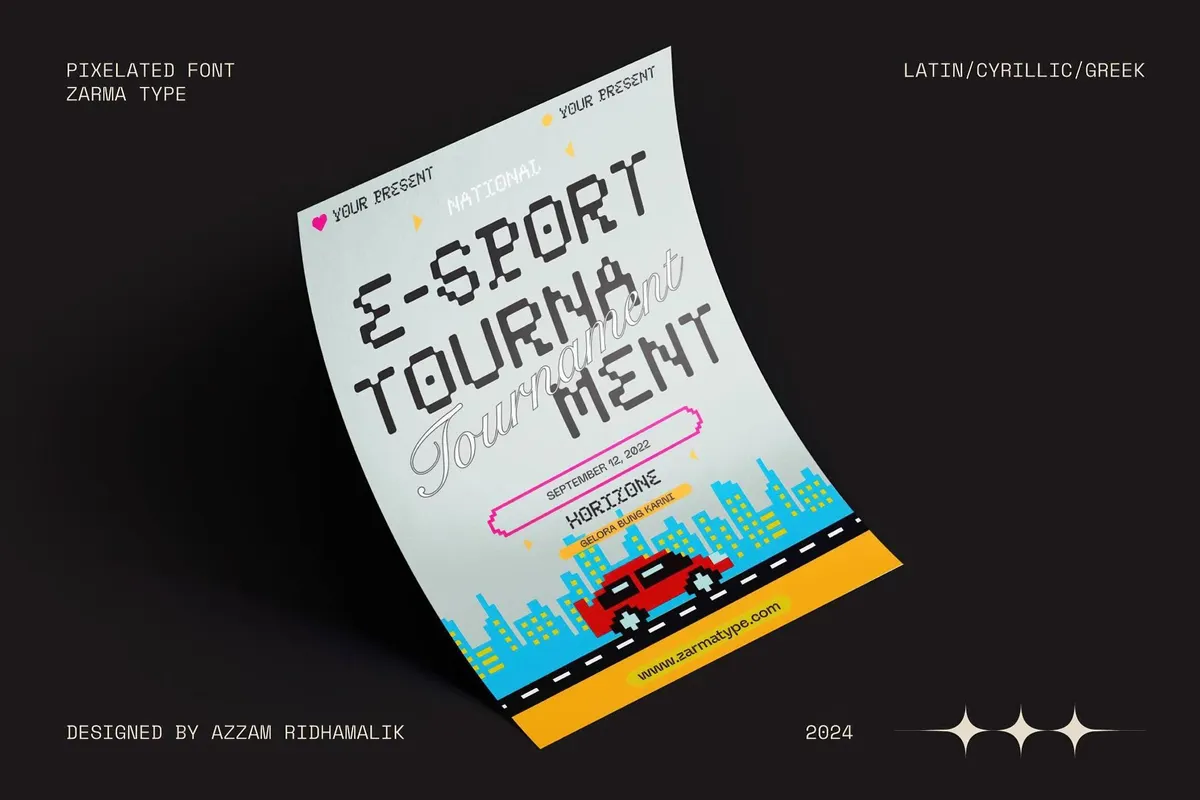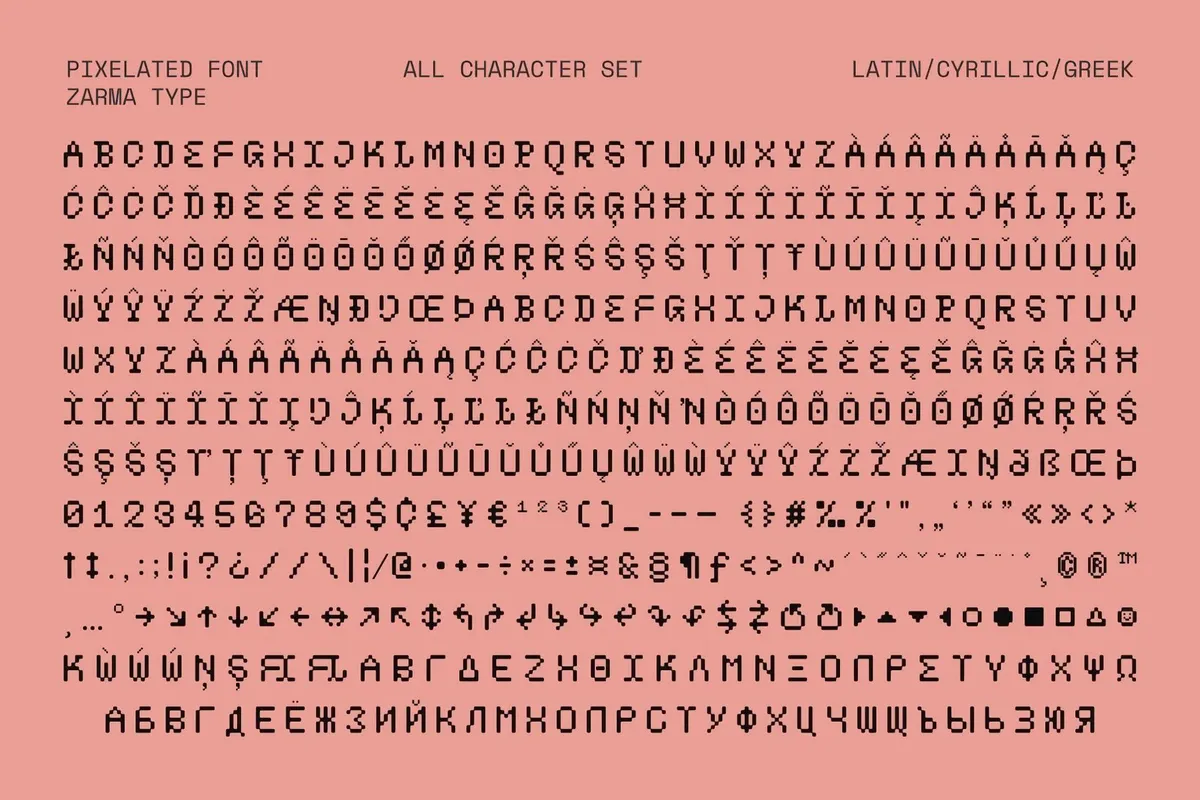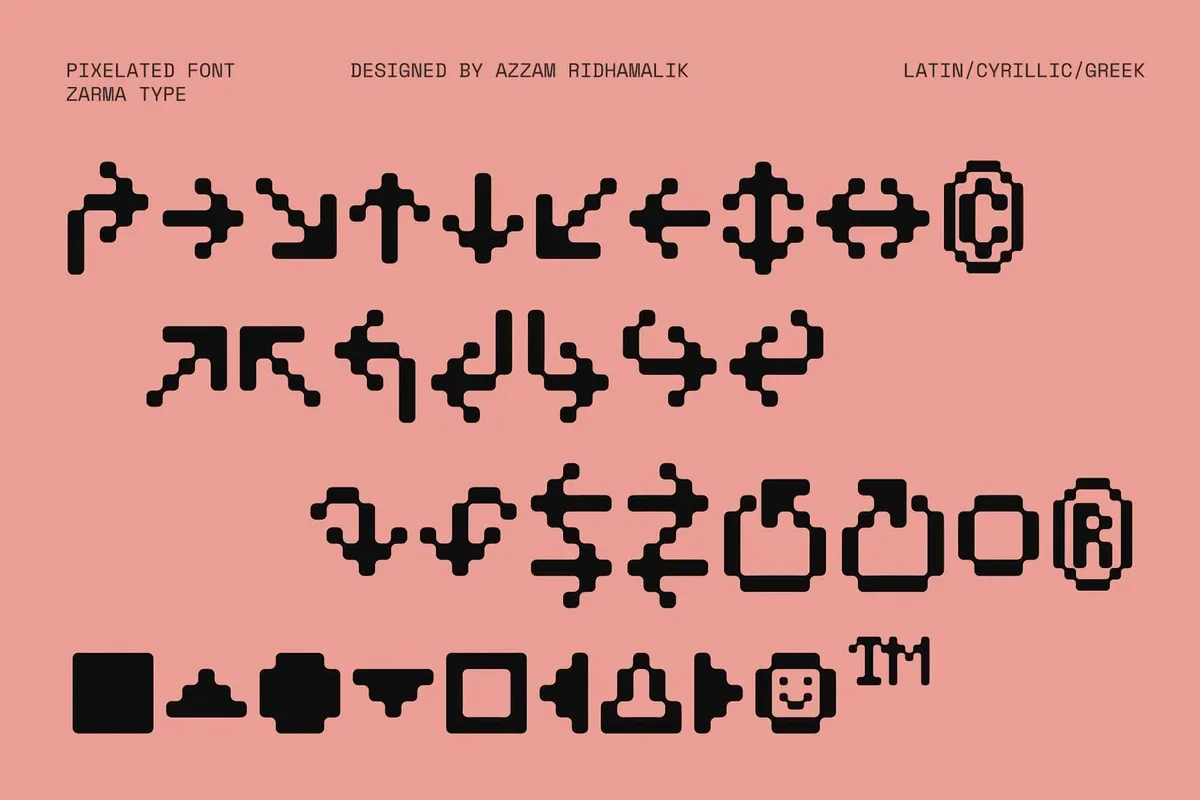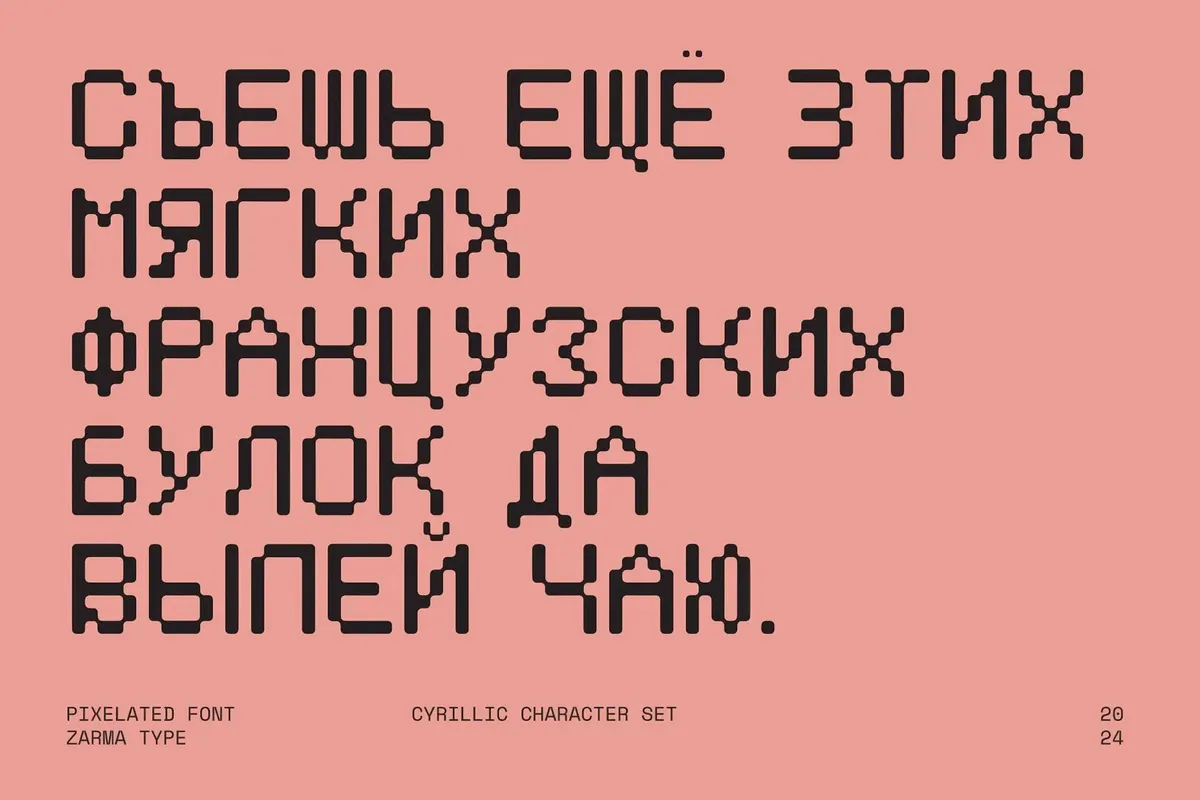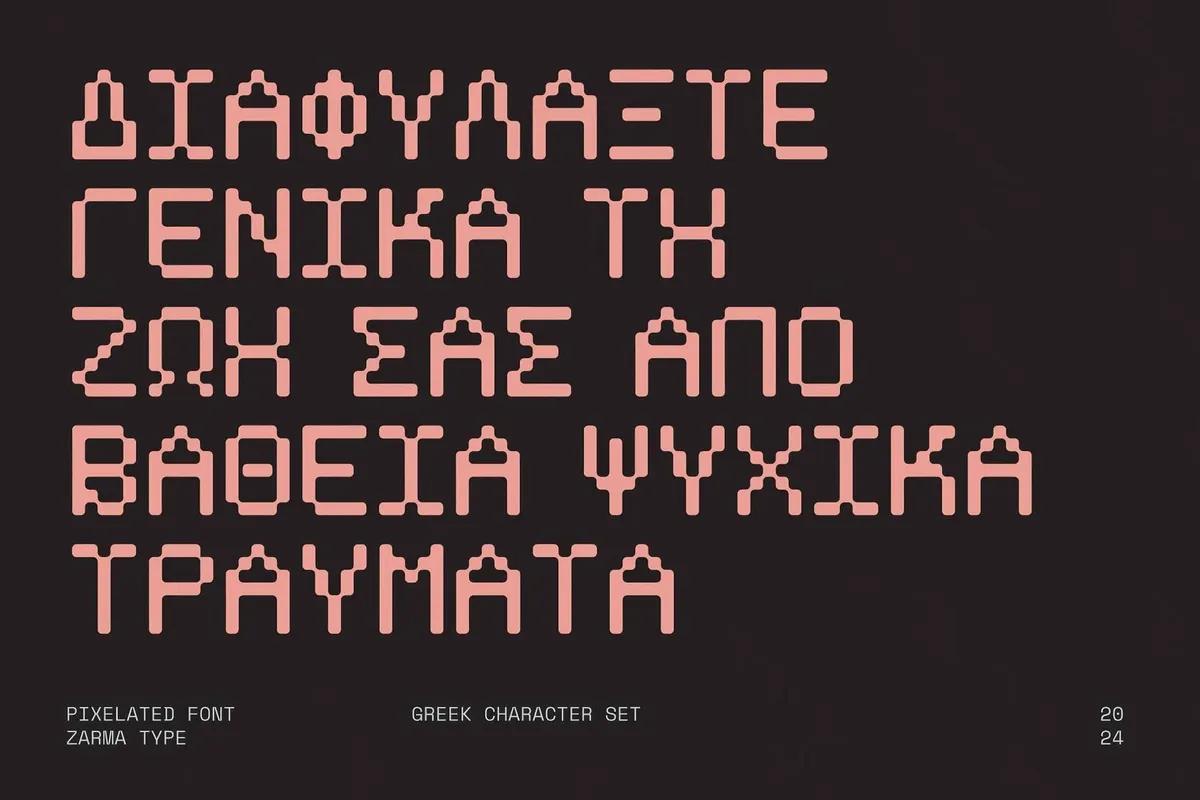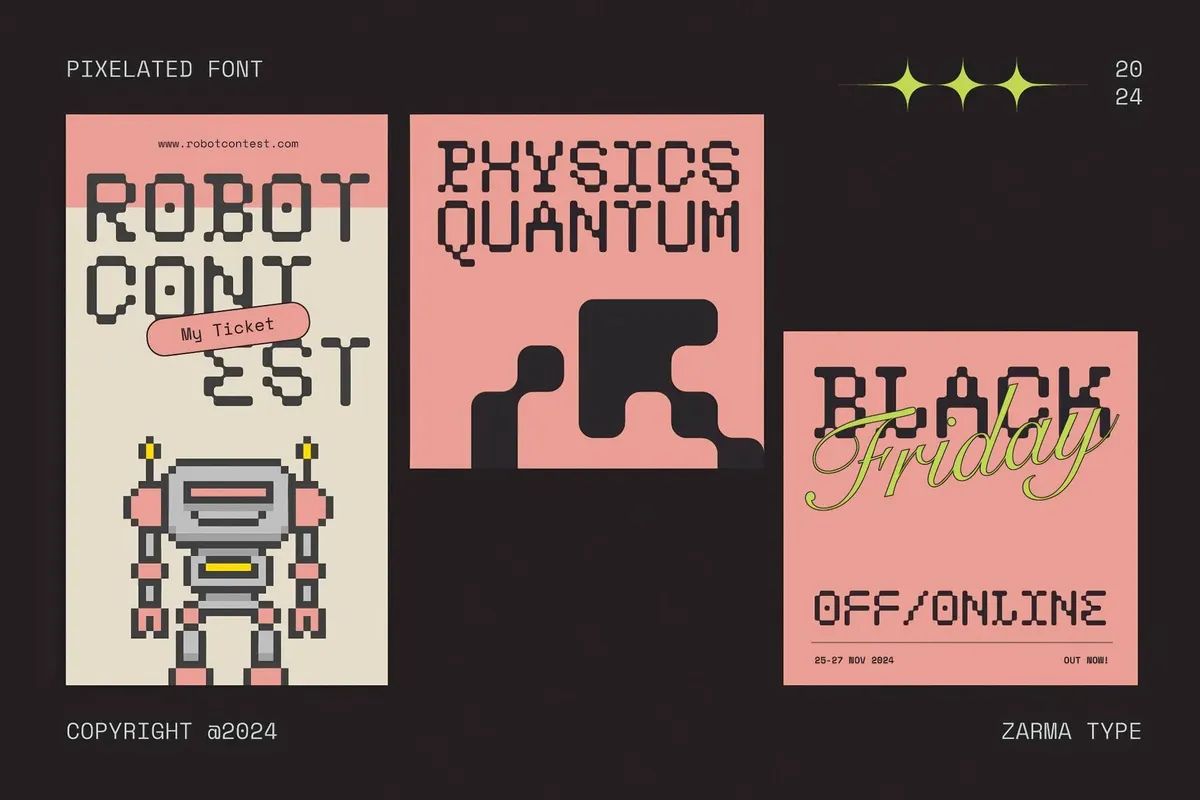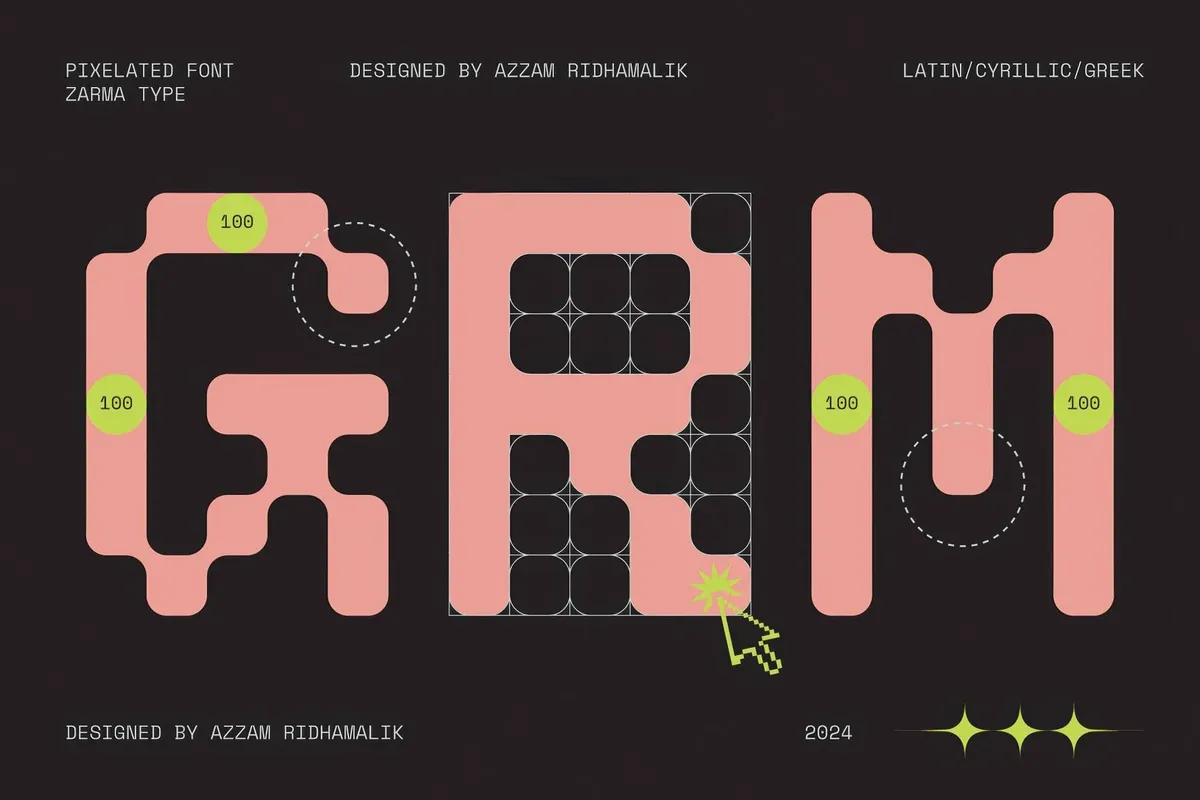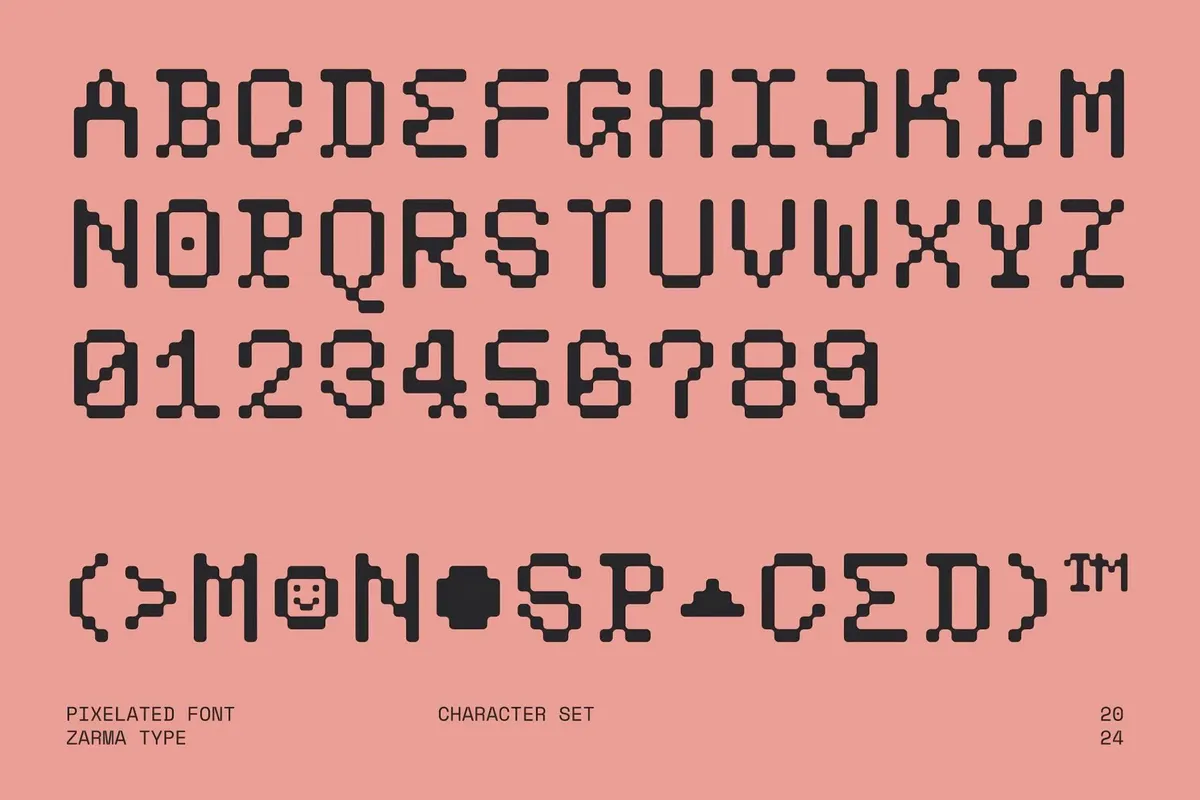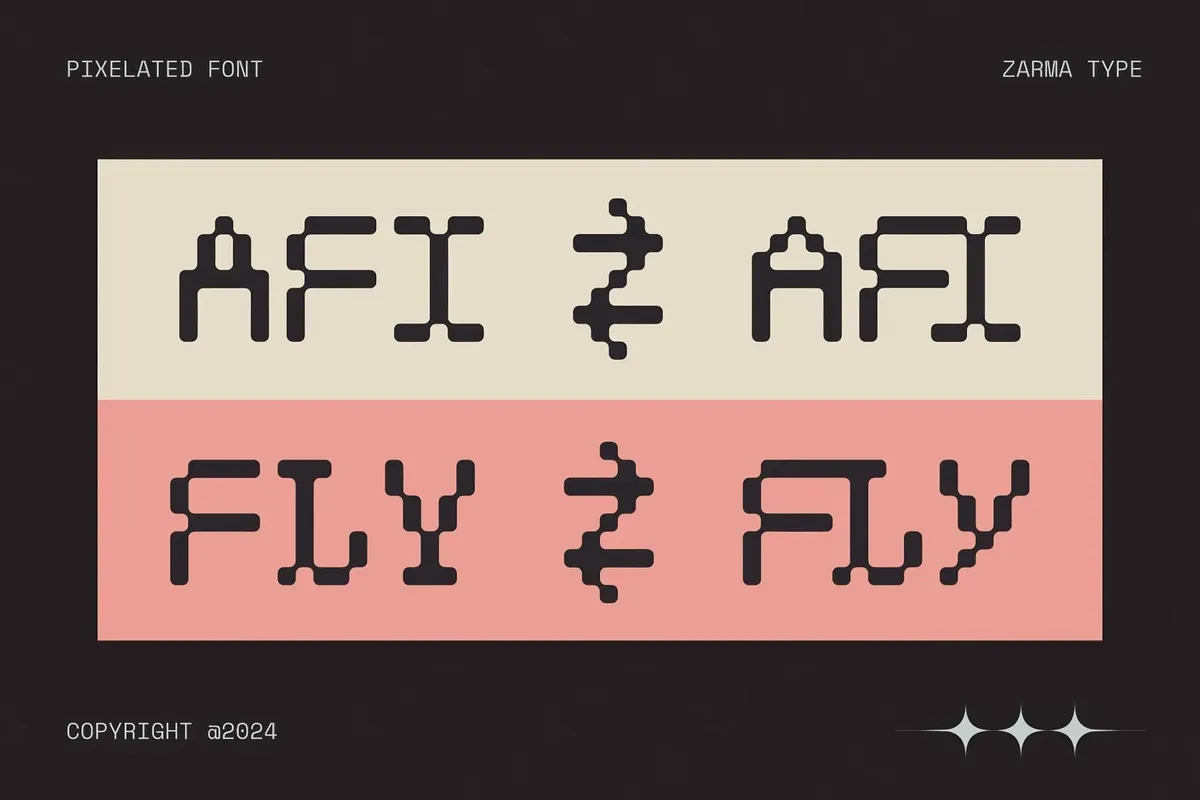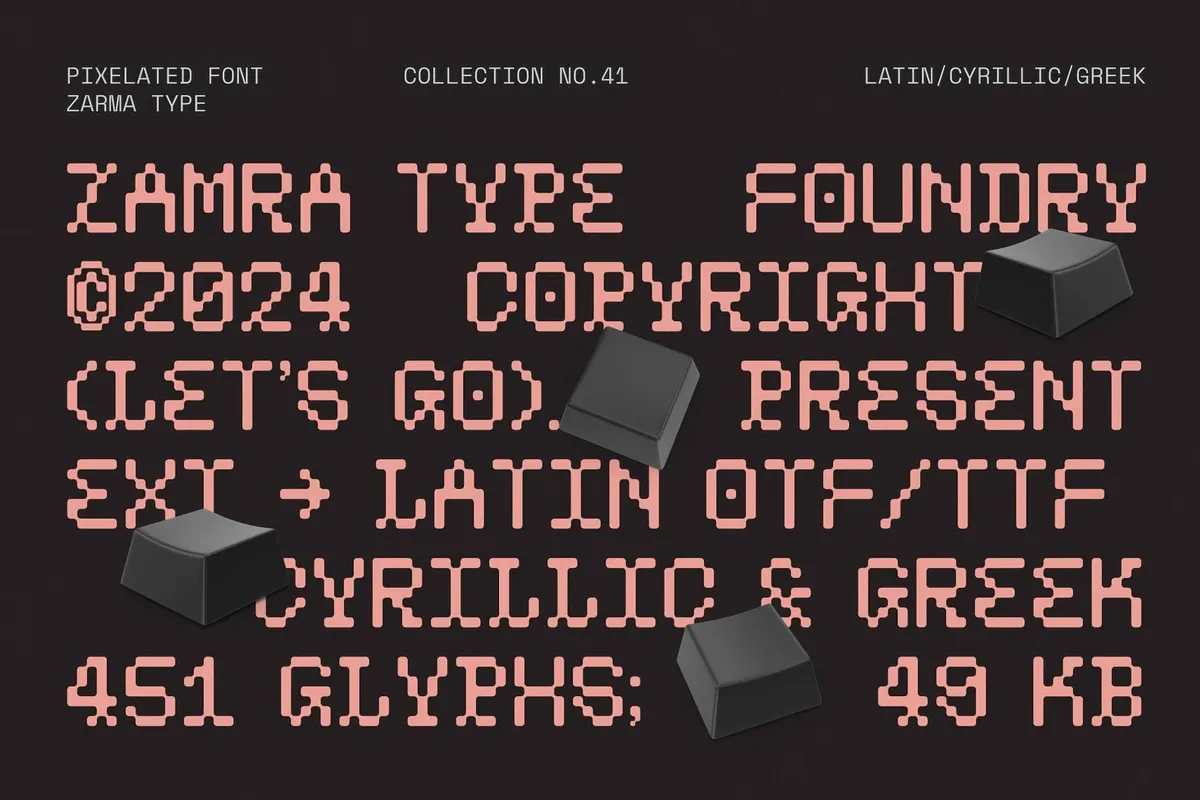
Psygen — Modern Pixel Font
Psygen
Psygen is a pixelated monospaced typeface with a strong retro-futuristic and cyber-inspired aesthetic. The blocky, grid-based letterforms resort to the early computer interfaces, arcade game typography, and ASCII art.
The font supports Latin, Cyrillic, and Greek scripts, making it versatile for multilingual design. The extended set of characters also has unique symbols and directional arrows — yet no lower case. The playful use of rounded edges and modular structure gives Psygen a modern take on classic pixel fonts, so it's perfect for tech branding, gaming visuals, futuristic posters, and experimental typography projects.